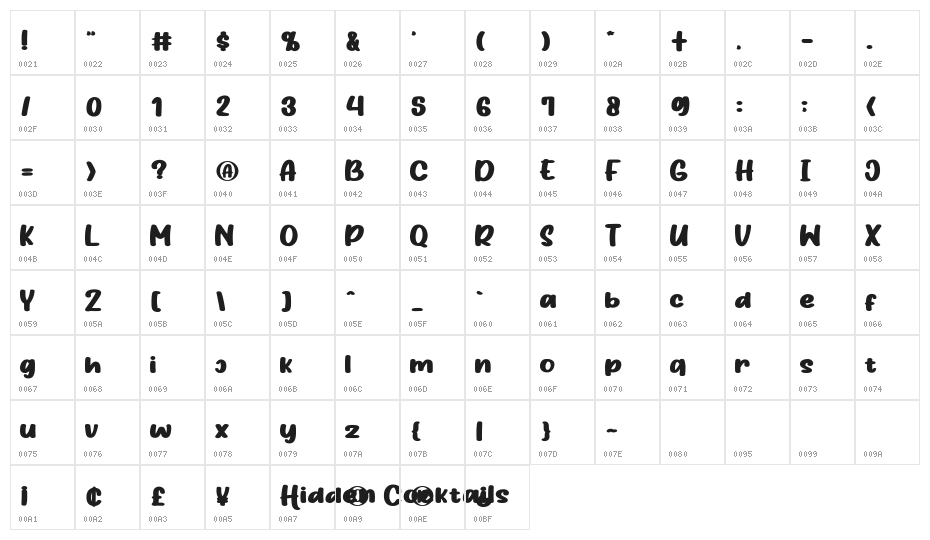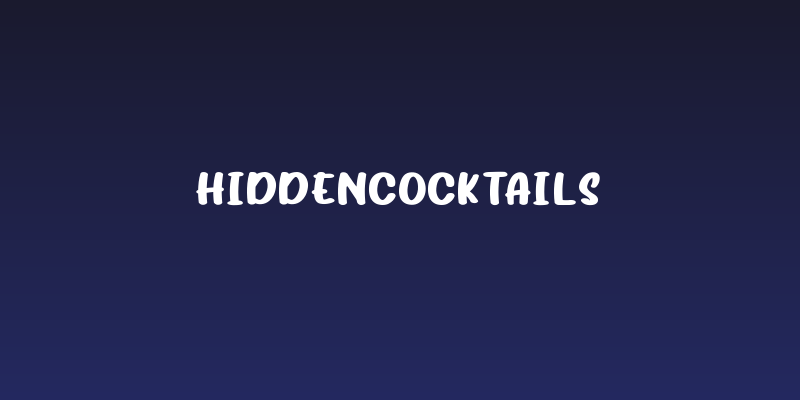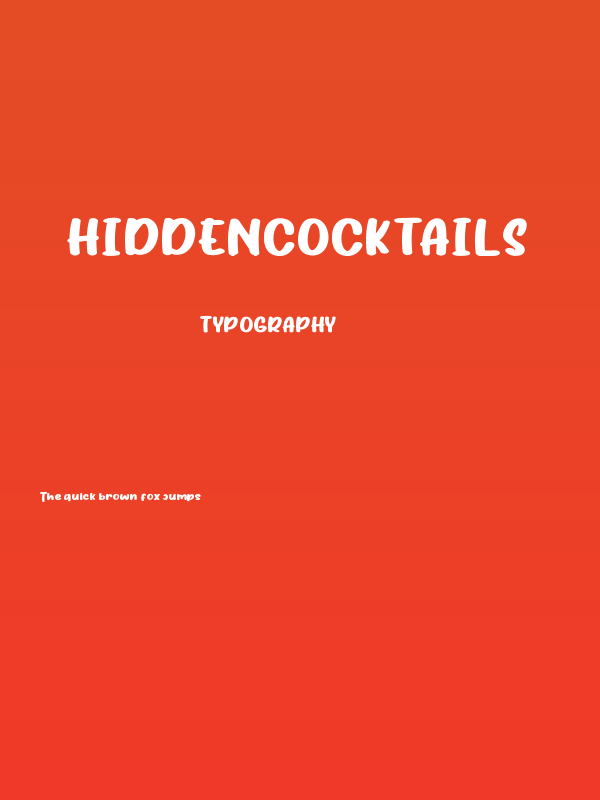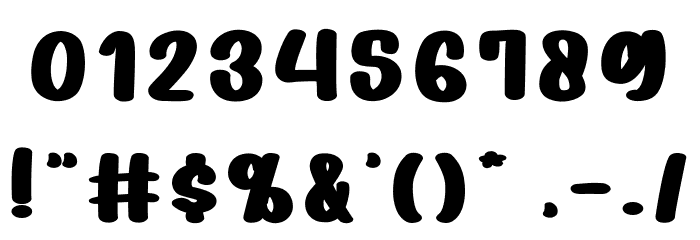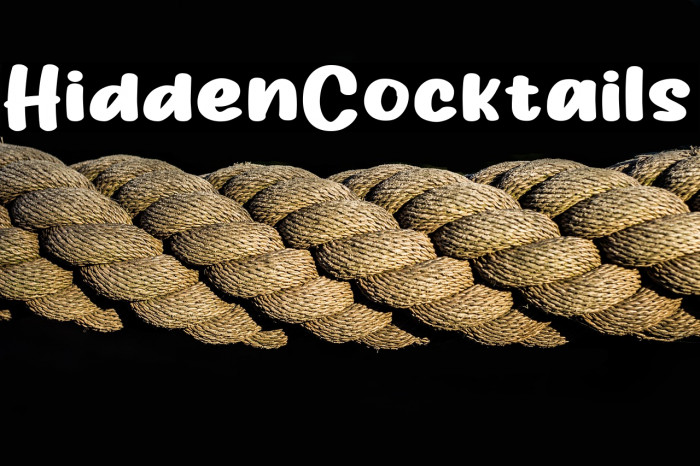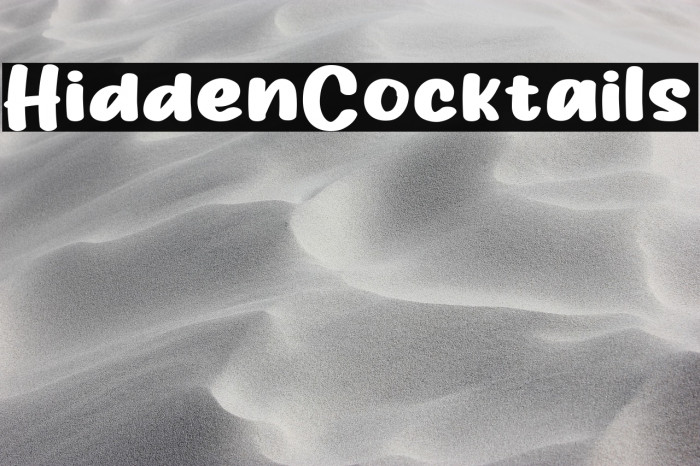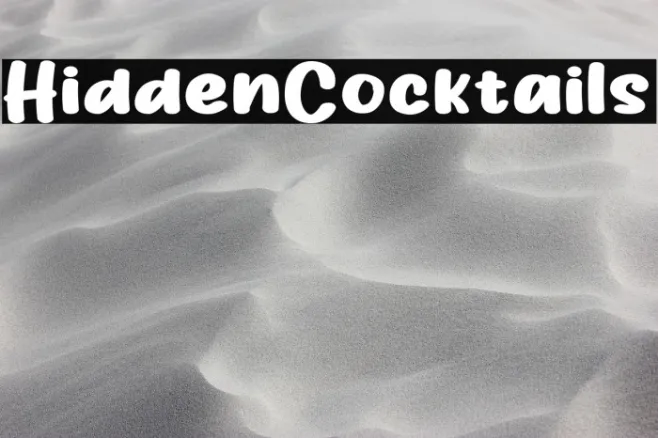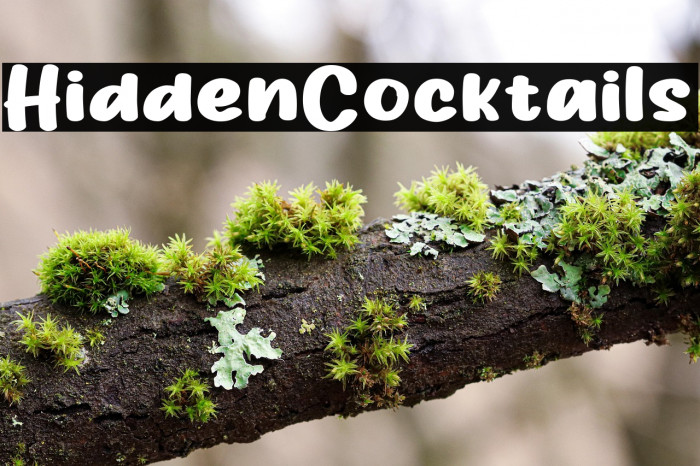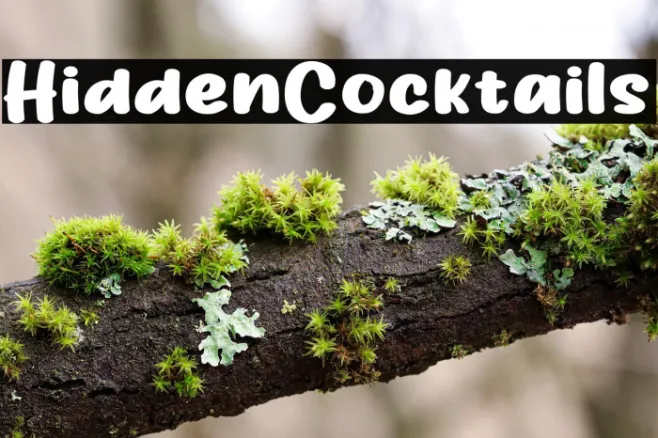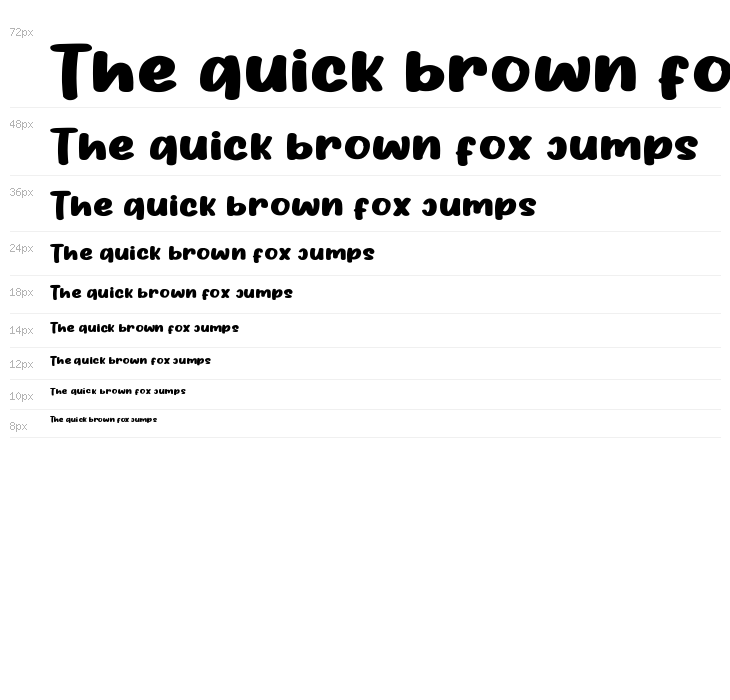
HiddenCocktails Font
HiddenCocktails Description
This playful and bold font features rounded, thick strokes that give it a friendly and approachable appearance. The letters are slightly condensed, with a consistent stroke width that maintains a uniform look throughout. The uppercase and lowercase letters are well-balanced, with a whimsical touch that adds character to the overall design. The numbers and special characters follow the same style, ensuring cohesion across all elements. This font is ideal for projects that require a fun and engaging aesthetic, such as children's books, playful branding, or casual event invitations.
| Proposed Projects | Children's books, playful branding, casual event invitations. |